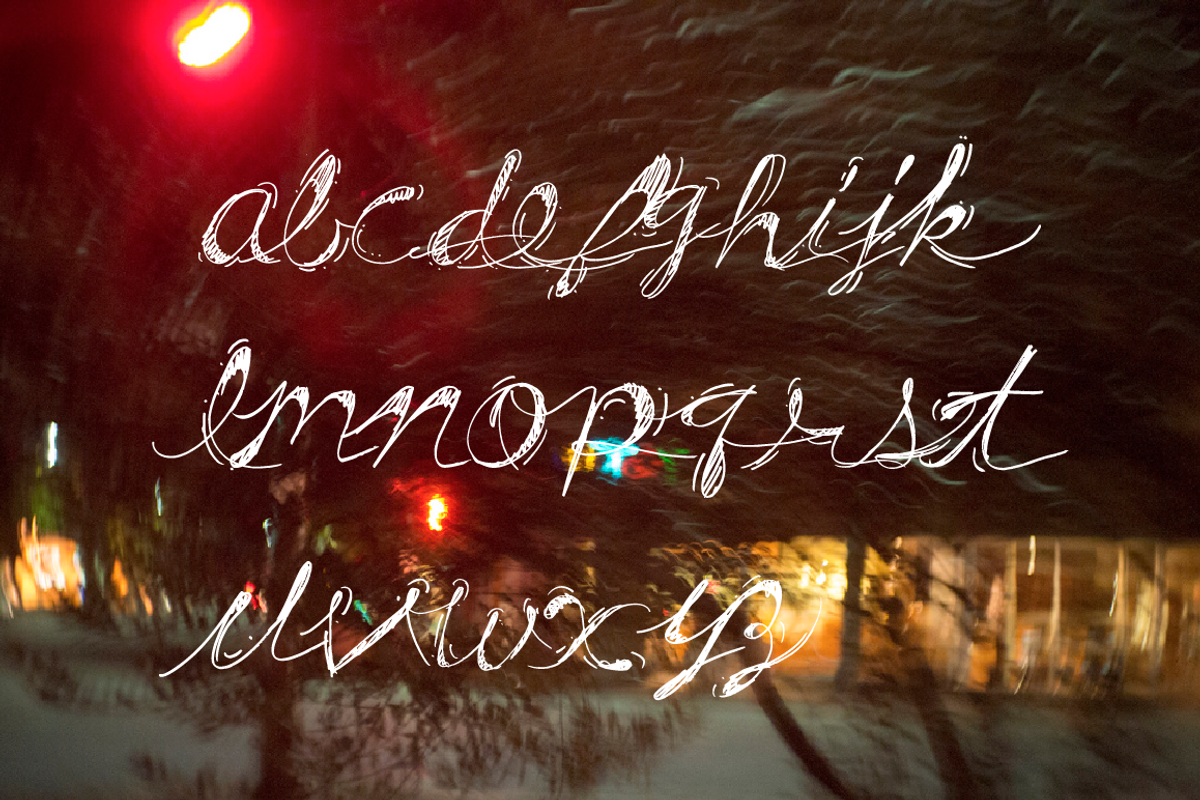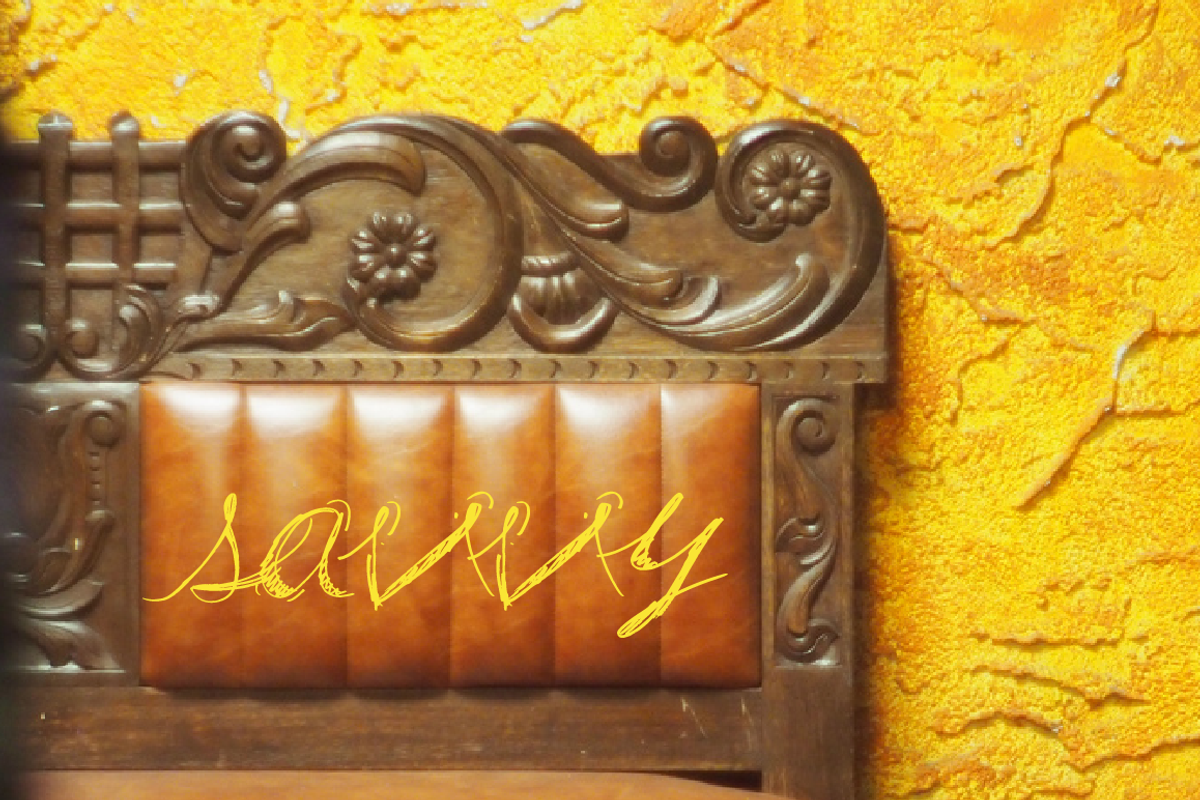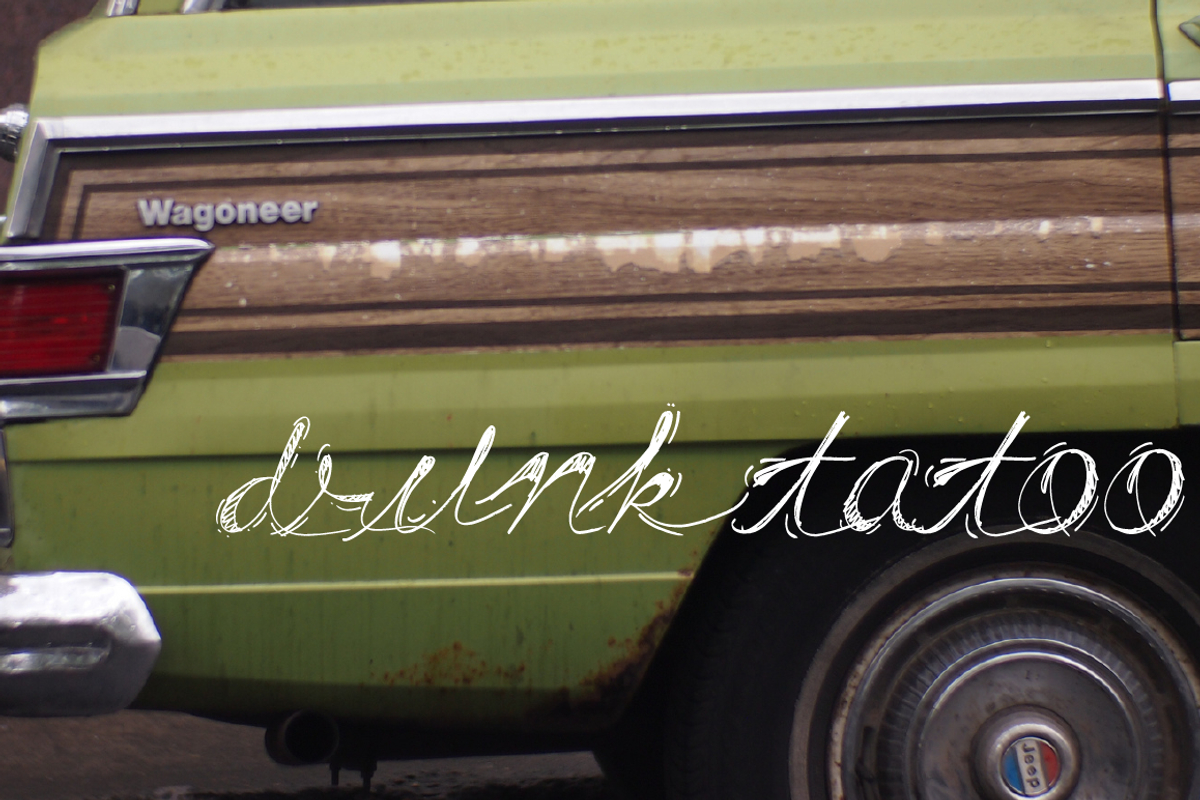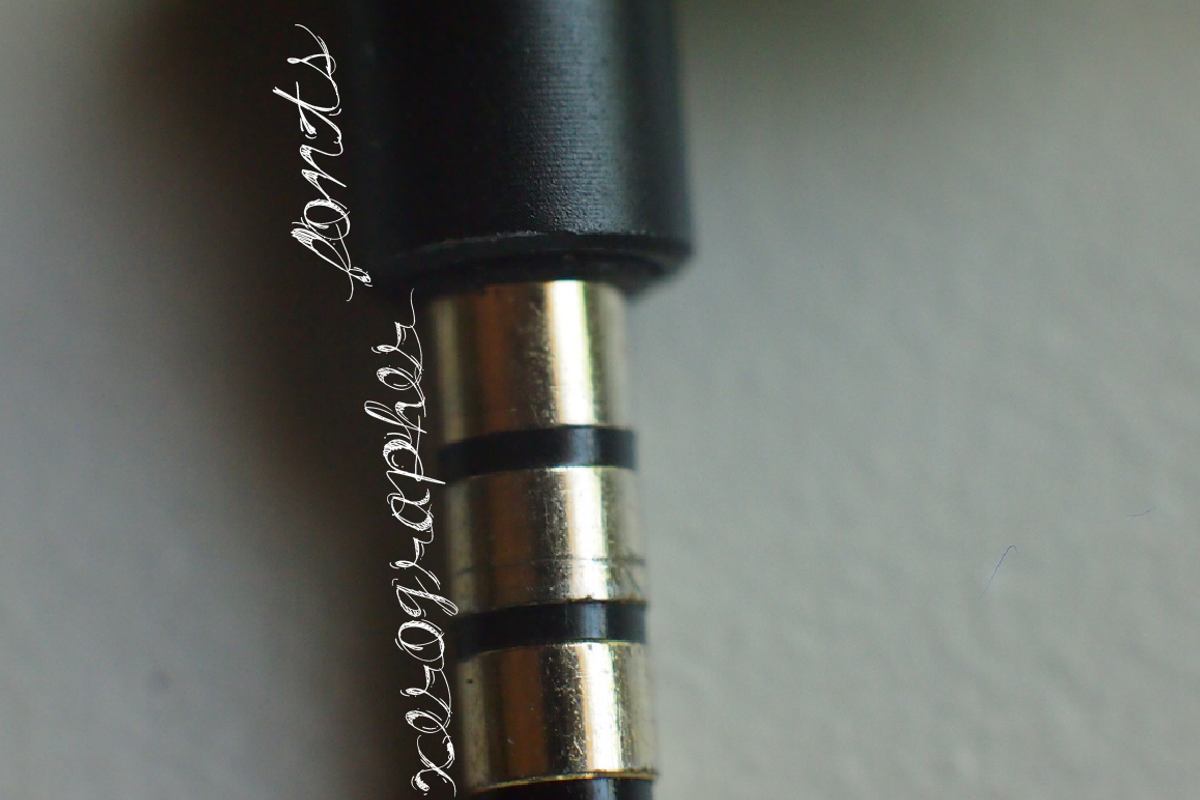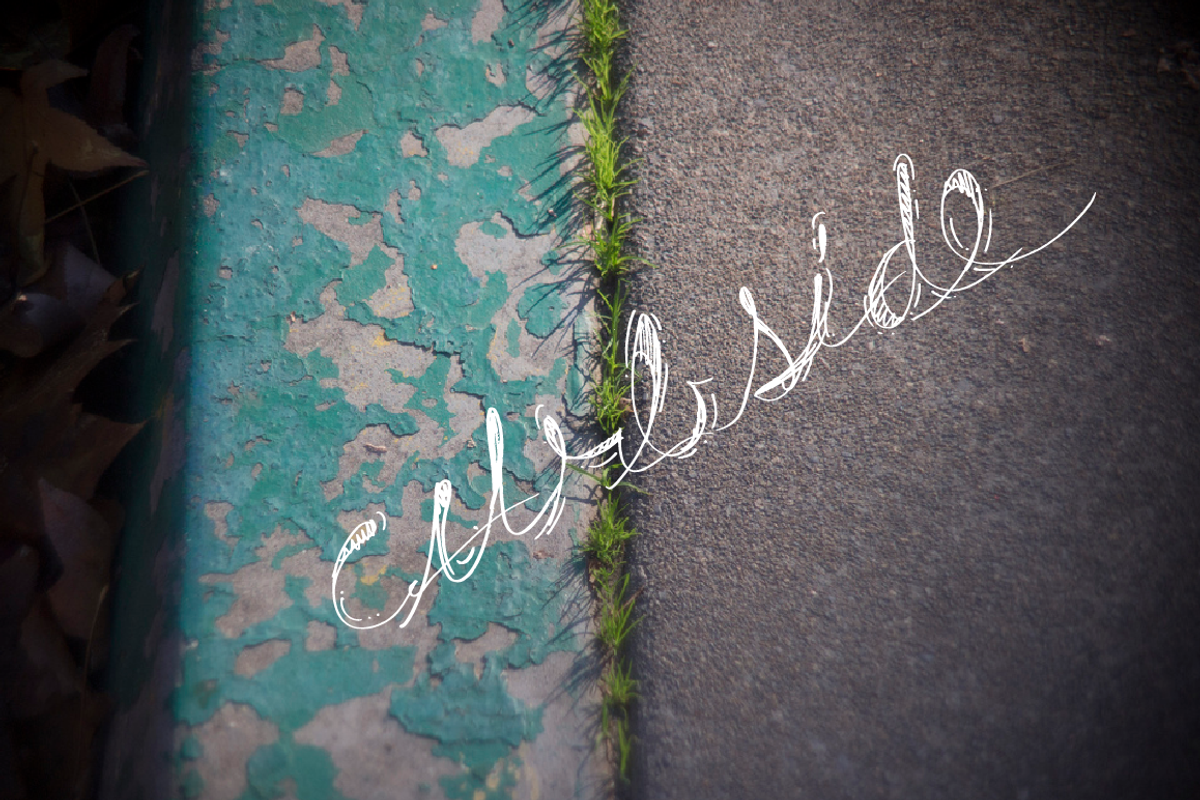
DrunkTattoo
DrunkTattoo by xero fonts is a font selected for branding, posters, packaging, typography.
Why DrunkTattoo is worth a look
DrunkTattoo by xero fonts fits naturally into Branding, posters, packaging, typography.